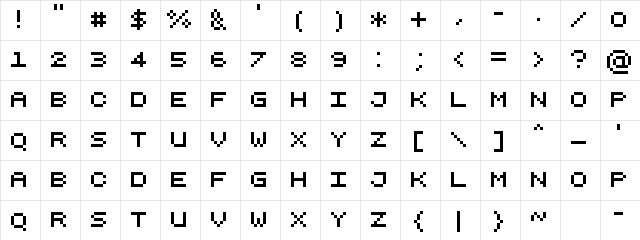
Pixelicious Regular Free Font
Pixelicious Regular
Design Context for Pixelicious
Pixelicious is rooted in pixel-grid construction, making it a natural fit for game UI, retro computing aesthetics, and digital nostalgia projects.
Pro Tip: Use Pixelicious at sizes that align with its pixel grid for the sharpest rendering - scaling to non-integer multiples can introduce unwanted blur.